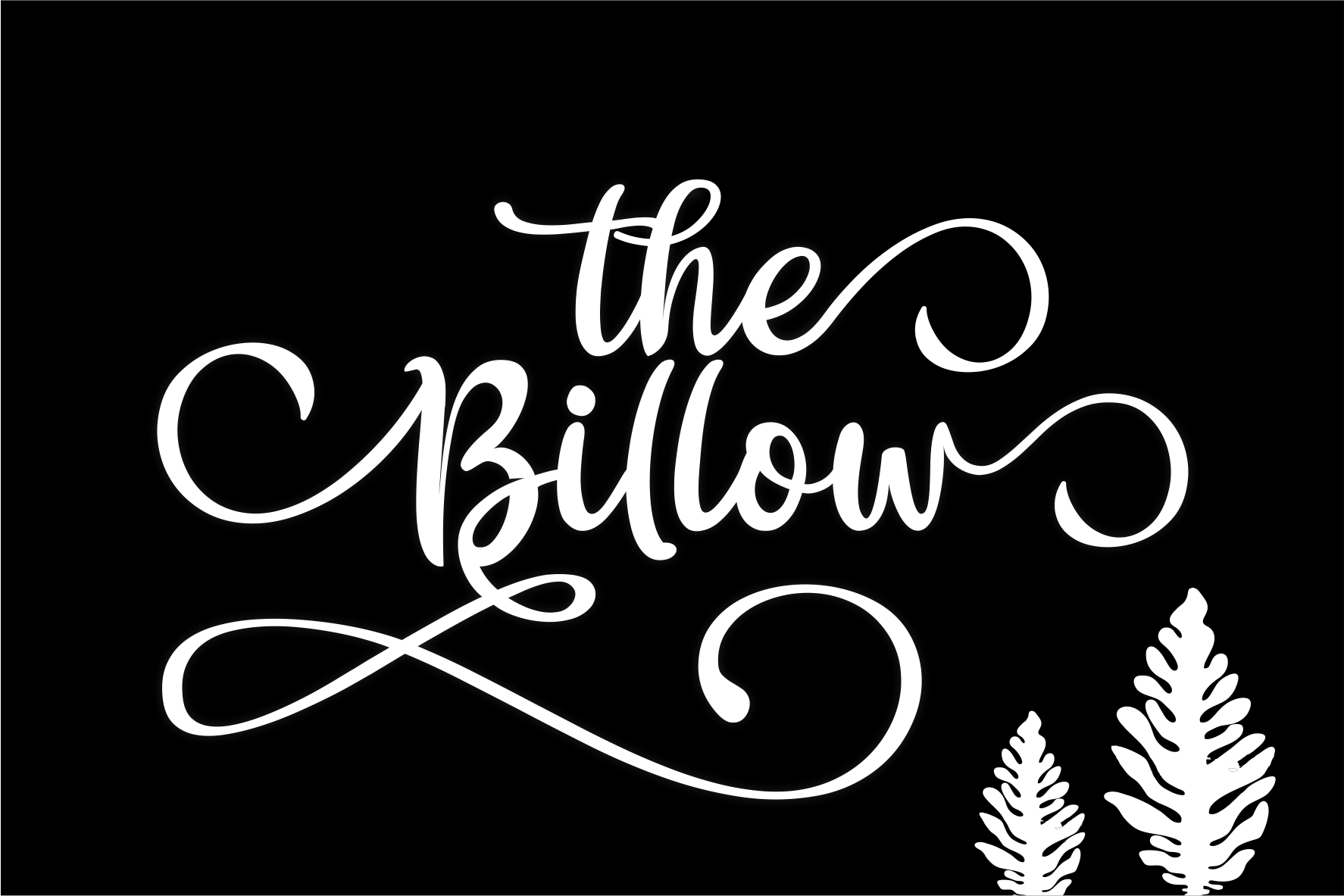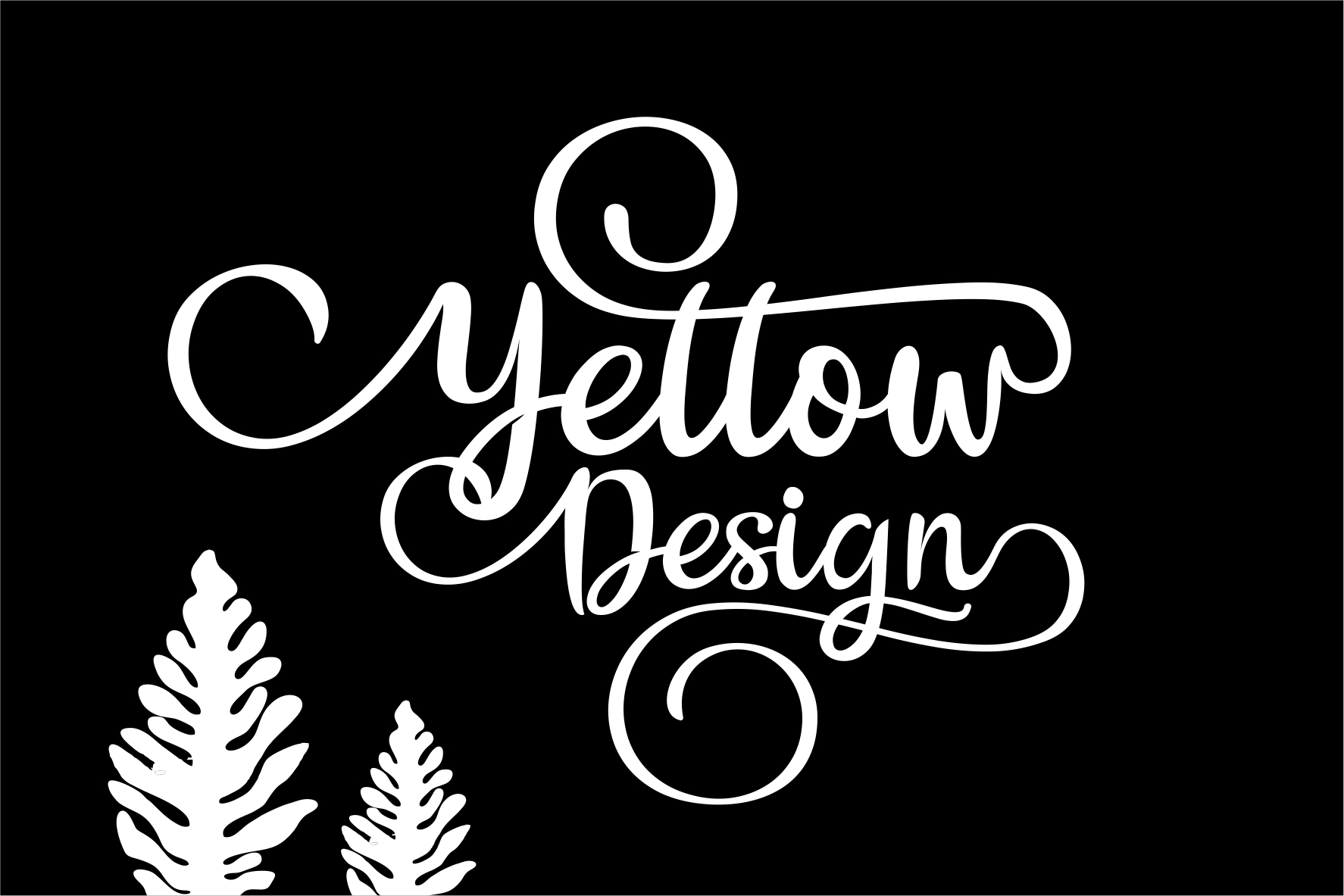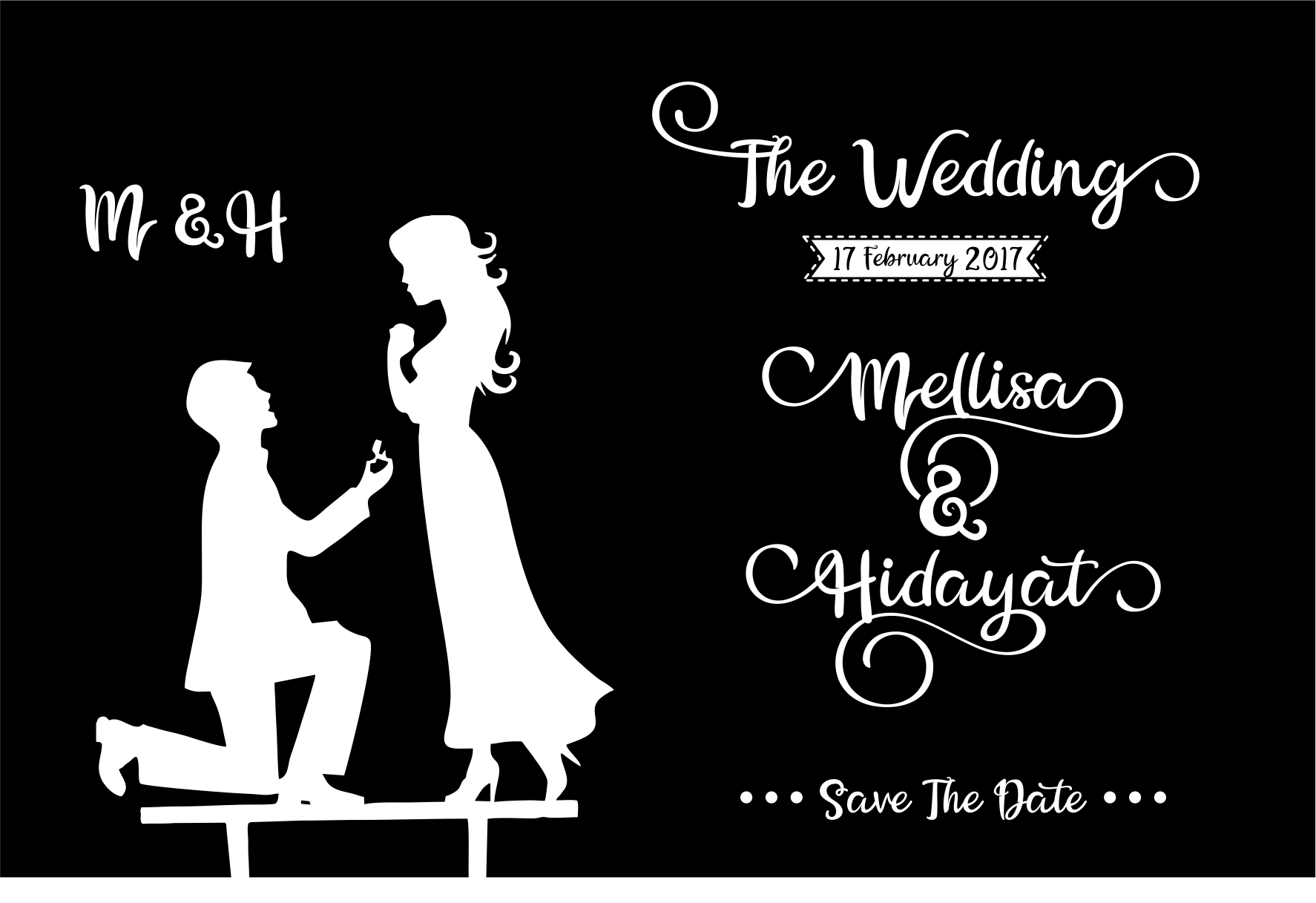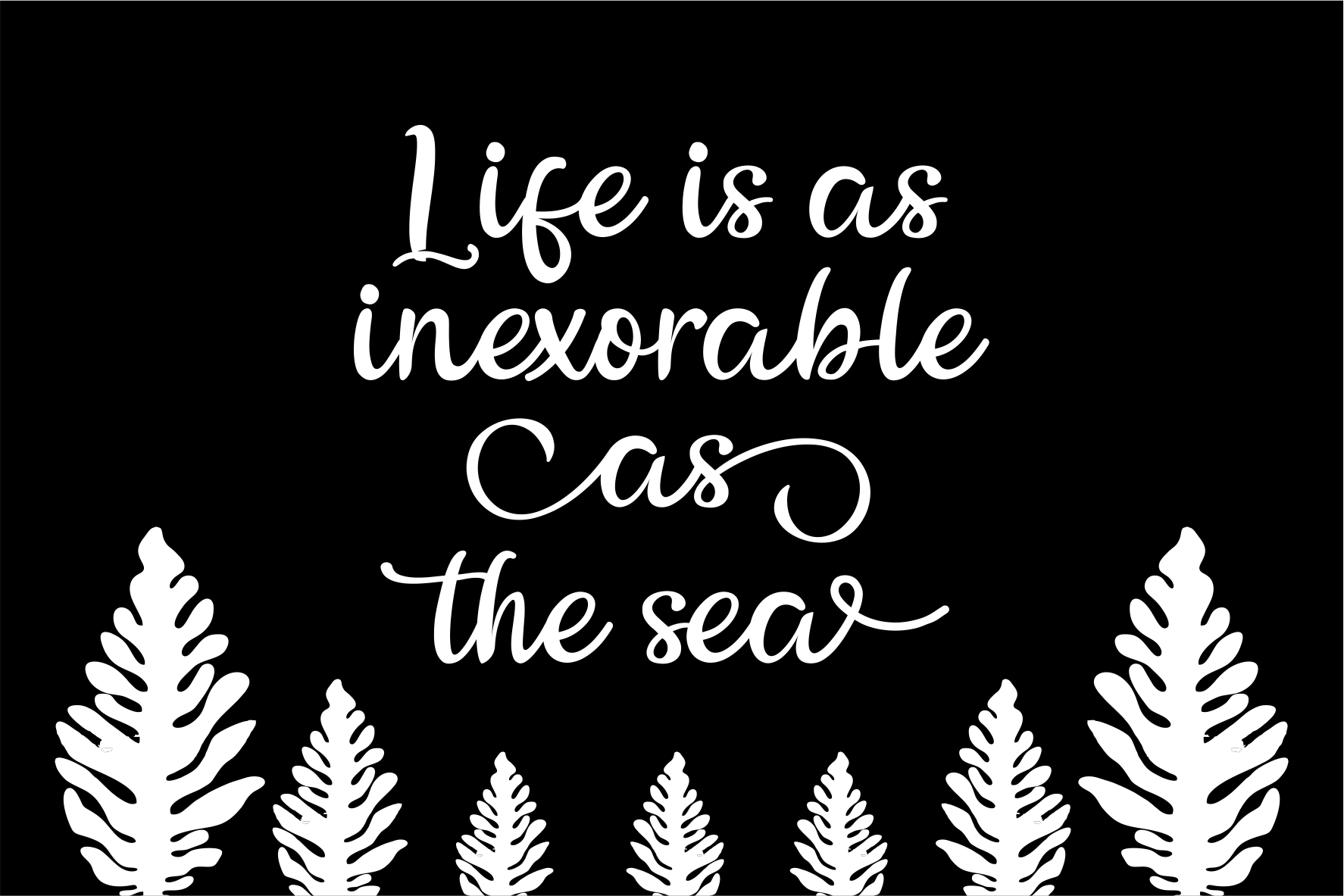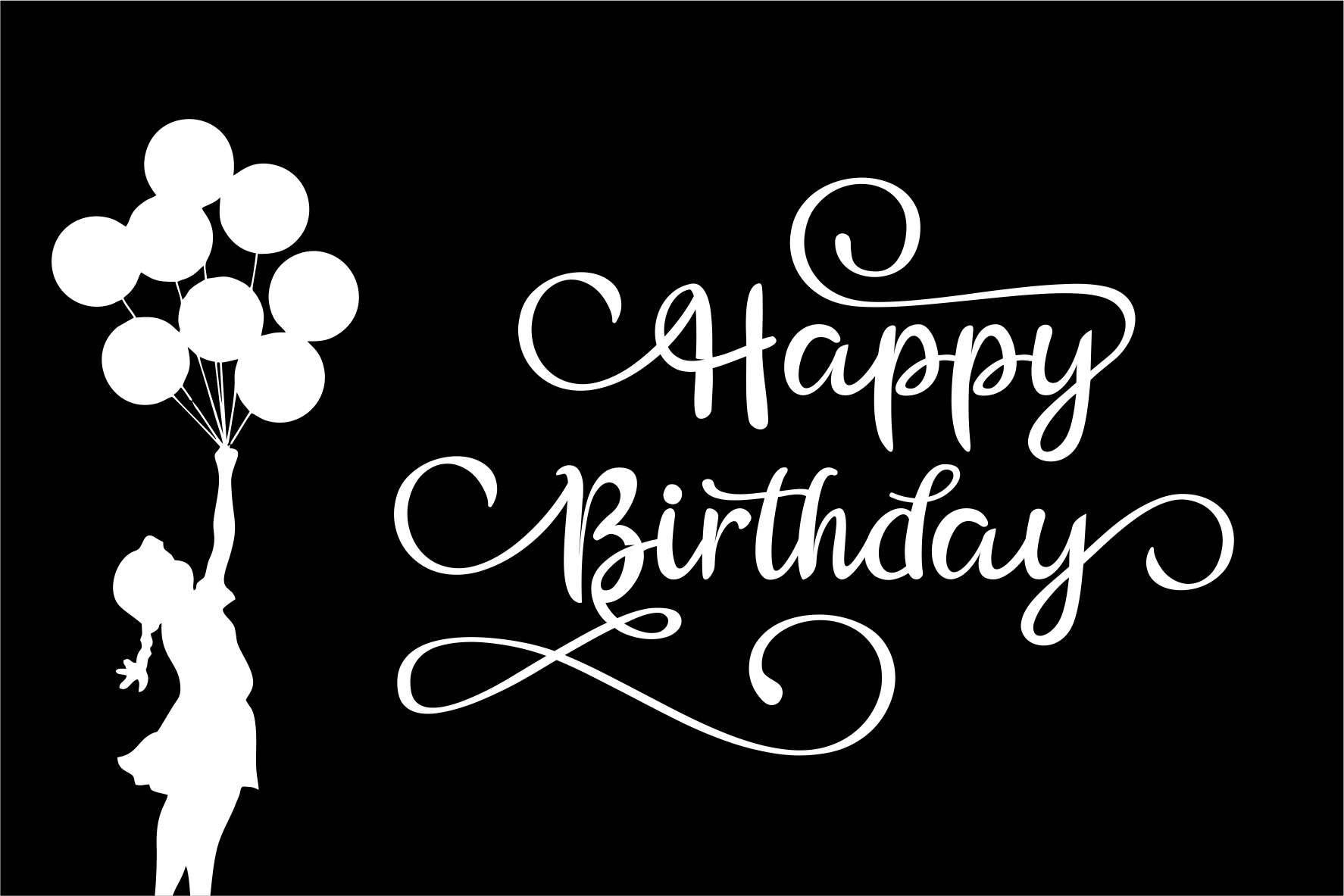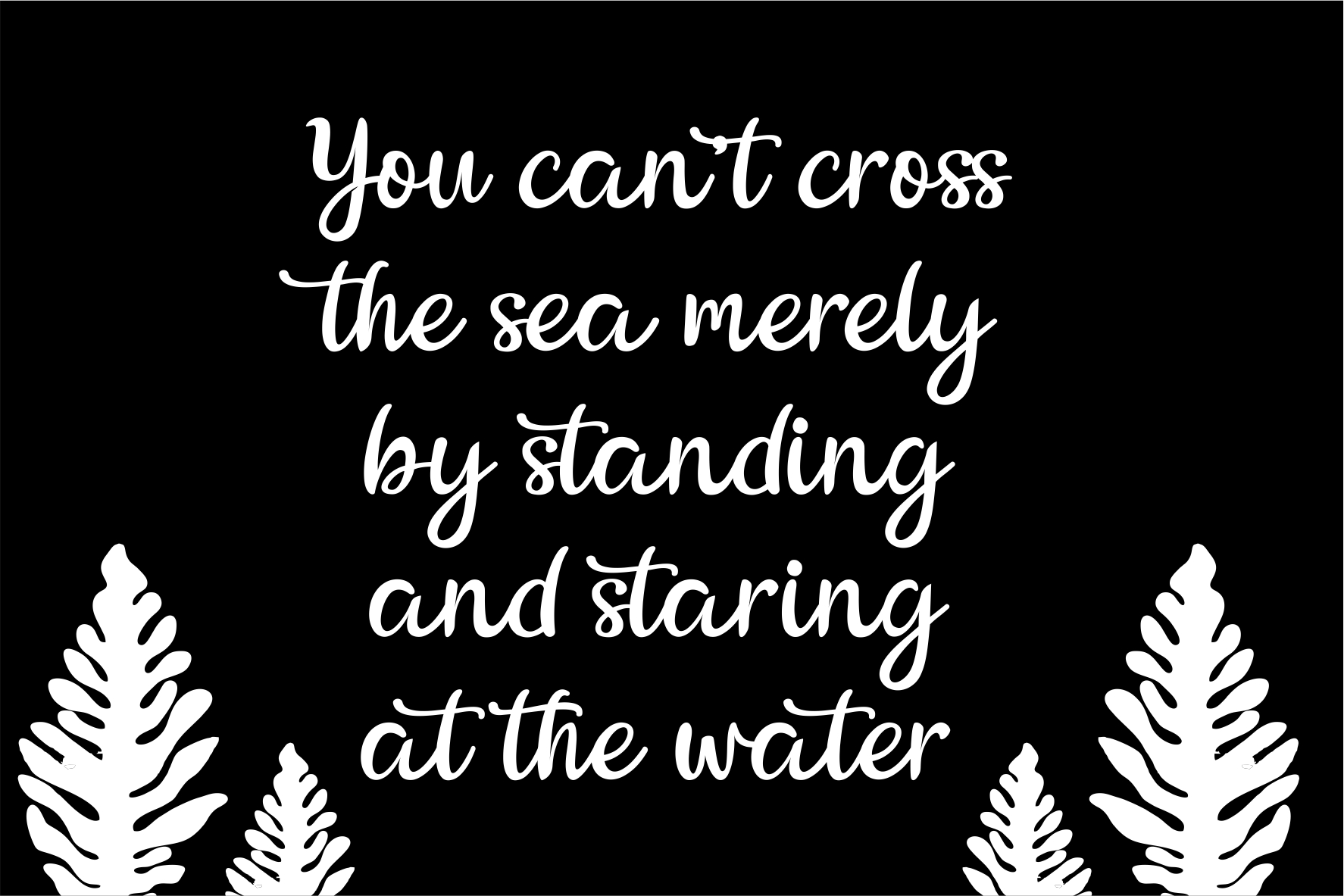
The Billow Font
About The Billow Font
The Billow is a beautiful script font, hand drawn for an authentic calligraphy feel. This is a great script for a wide range of both digital and print designs, as it comes with character alternates and impressive swashes that can give an elevated feel of elegance to your designs.